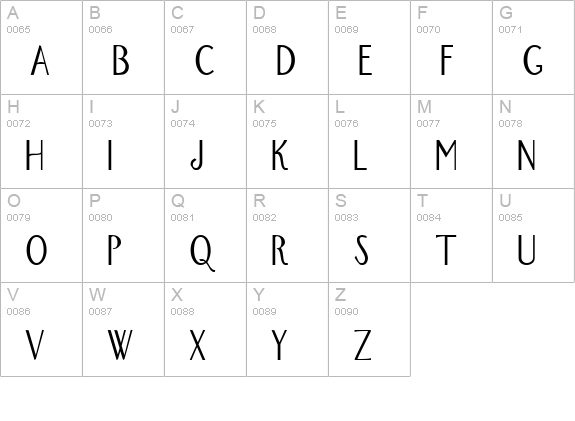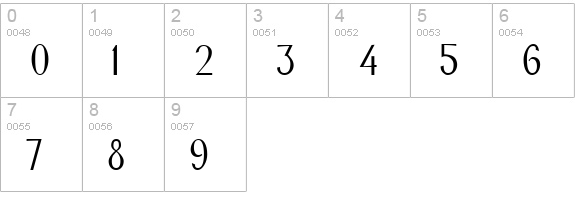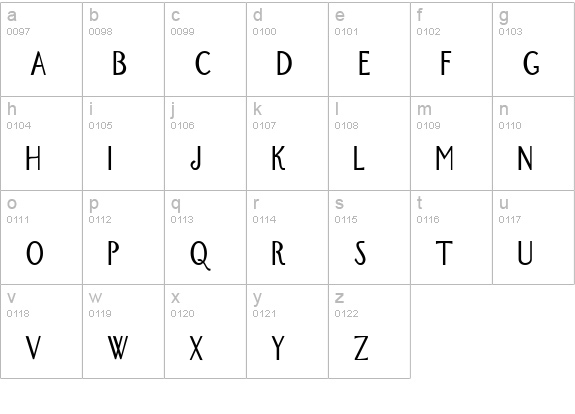
New York-Condensed Normal Font Details
New York-Condensed Normal is the standard, neutral, condensed-width variant in the New typeface family \xE2\x80\x94 well suited to general body text, paragraphs, and standard typographic work.
New York-Condensed Normal font is a sleek and modern typeface that exudes sophistication and style. Its condensed design makes it perfect for creating bold headlines, striking logos, and eye-catching posters. The clean lines and sharp edges of this font give it a contemporary and professional look that is sure to make your designs stand out. What's even better is that New York-Condensed Normal font is available for free download at FontsMarket.com. This means that you can easily access this versatile and stylish font without having to break the bank. Whether you're a graphic designer, a web developer, or a hobbyist looking to add a touch of elegance to your projects, New York-Condensed Normal font is the perfect choice for all your typographic needs. Download it today and elevate your designs to the next level!